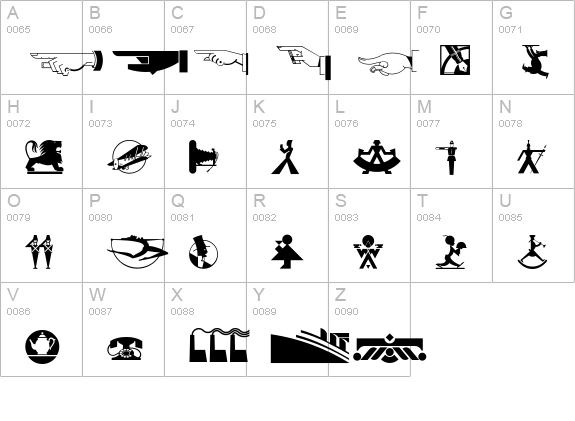
DecoDingbats1 font is a whimsical and versatile typeface that adds a touch of fun and playfulness to any design project. With its unique collection of decorative symbols and icons, this font is perfect for creating eye-catching graphics, invitations, and more. The intricate and detailed designs of DecoDingbats1 font make it stand out from the crowd, giving your projects a distinctive and artistic flair. Best of all, DecoDingbats1 font is available for free download at FontsMarket.com. Whether you're a designer looking to add a creative touch to your work or someone who simply enjoys experimenting with different fonts, DecoDingbats1 is a fantastic choice. So why wait? Download this delightful font today and let your creativity soar!